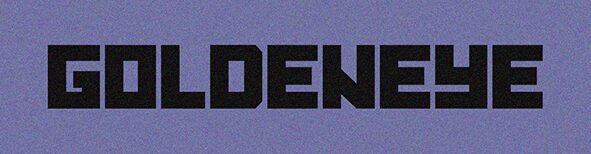
Goldeneye Italic
Goldeneye Italic font by Vladimir Nikolic is a display font with a techno design style. This font is bold and has several characteristics including geometric shapes, futurism, angular corners, and more. Its presence in any design will leave a strong visual impact.
The free techno display font fits especially in body and heading text on book covers, posters, games UI, promo material for technological innovations or brands, movies (booklets), music album covers among others.